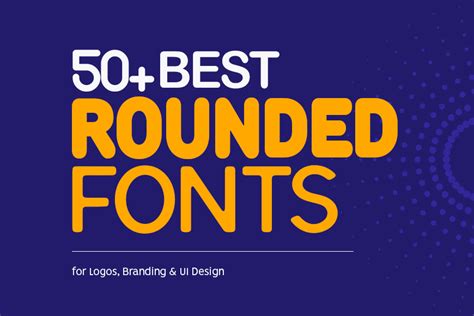
Good Rounded Fonts. Perfect for logos, titles, and headers, these fonts add a touch of. Web add a creative touch to your designs with free, rounded fonts!
Web add a creative touch to your designs with free, rounded fonts! Web 1 to 15 of 1322 results round fonts have letters with softer edges or borders. Perfect for logos, titles, and headers, these fonts add a touch of.
Perfect for logos, titles, and headers, these fonts add a touch of. Perfect for logos, titles, and headers, these fonts add a touch of. Web add a creative touch to your designs with free, rounded fonts! Web 1 to 15 of 1322 results round fonts have letters with softer edges or borders.